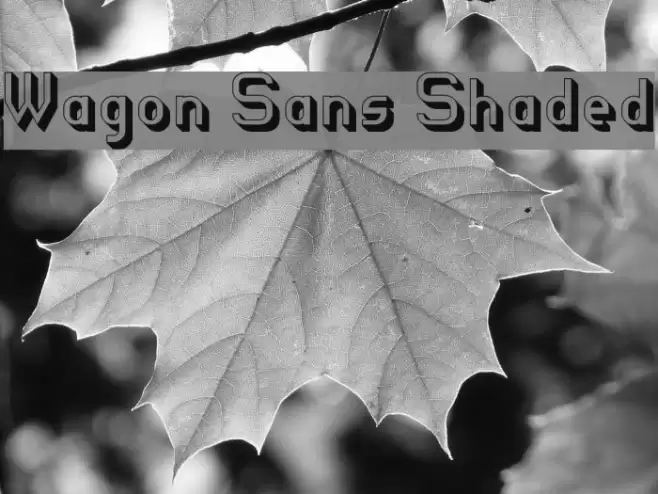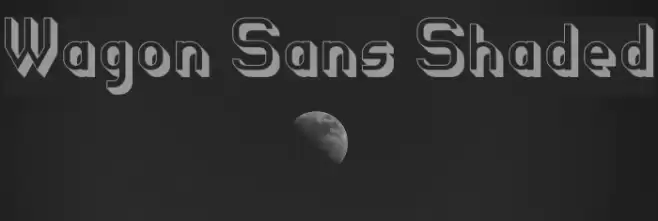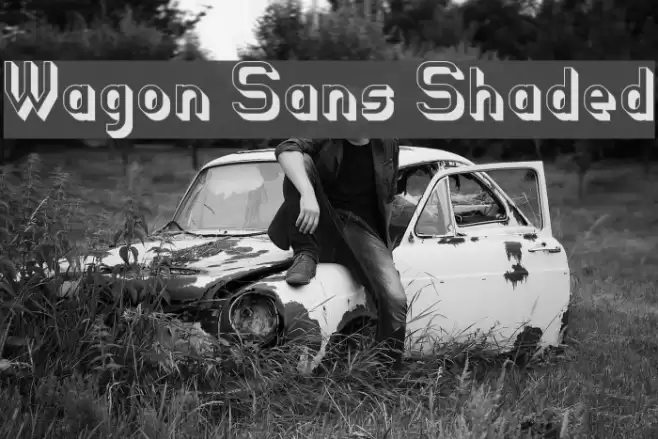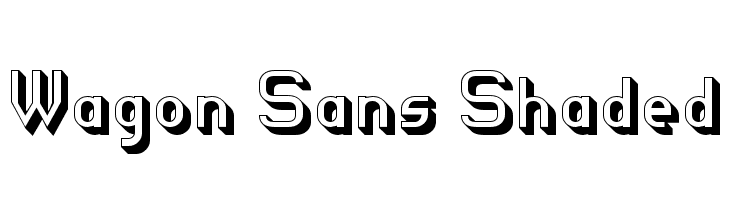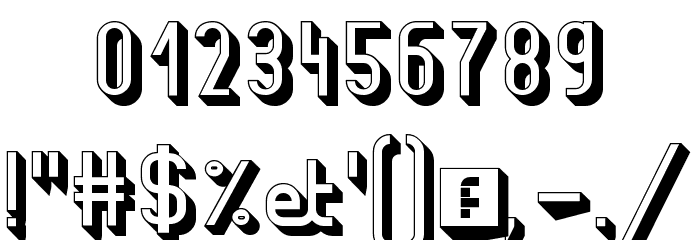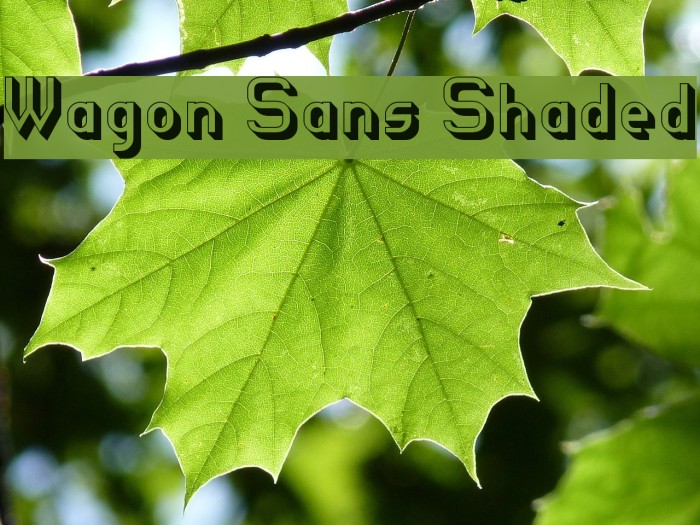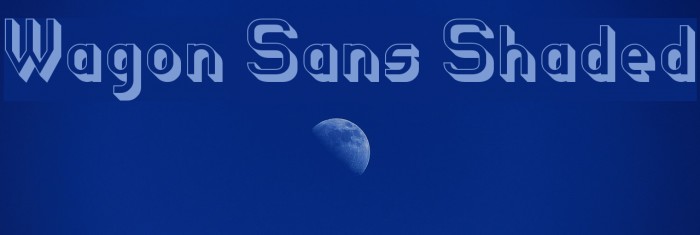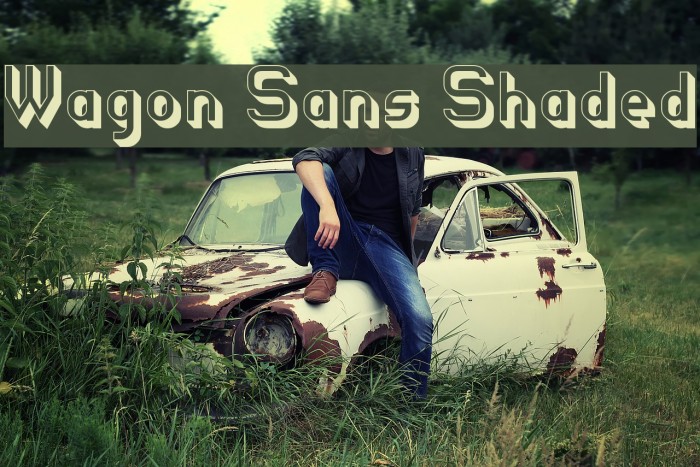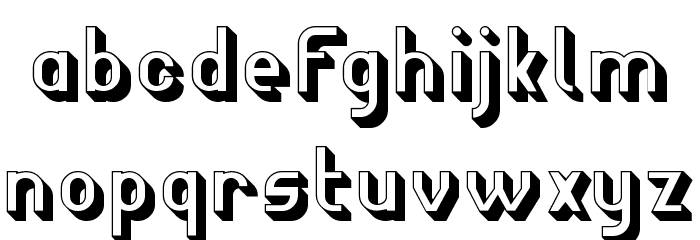
Wagon Sans Shaded Font
Wagon Sans Shaded Description
This font features a bold, three-dimensional appearance with a shaded effect that gives it a distinct, eye-catching look. The characters are sans-serif, with clean lines and a geometric structure. The shading adds depth and a playful, dynamic quality, making it stand out in any design. The uppercase and lowercase letters maintain a consistent style, while the numerals and special characters complement the overall aesthetic. This font is ideal for projects that require a modern and bold statement, with its unique shading providing a sense of movement and energy.
A bold, shaded sans-serif font with a three-dimensional effect from Uncategorized fonts.
- Proposed Projects: Ideal for posters, headlines, logos, and any design requiring a bold, dynamic look.